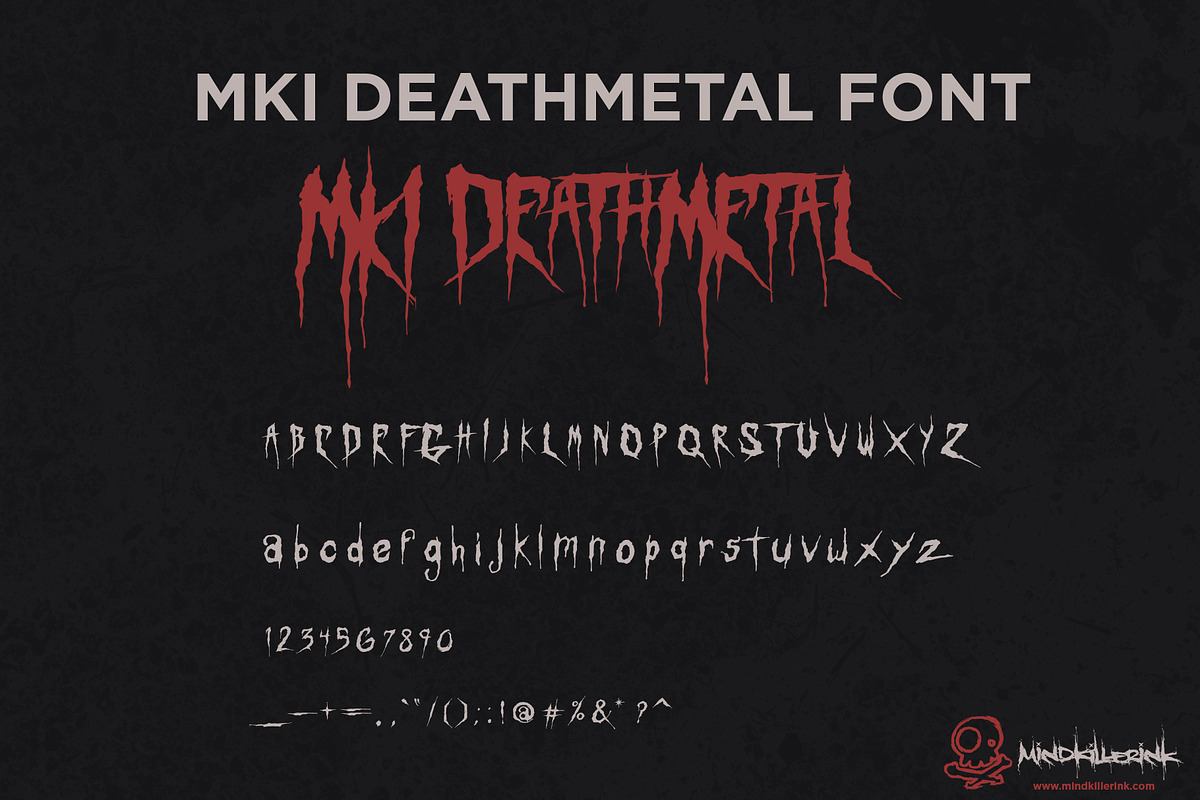
MKI Deathmetal font Free Download
MKI Deathmetal Font Free Download
MKI Deathmetal Font Free Download is a bold and gritty typeface inspired by the heavy, rebellious spirit of death metal music. With its sharp edges, distorted letterforms, and aggressive design, this font is perfect for creating intense, heavy designs like band logos, album covers, posters, merchandise, and more.
Its rough, grunge style gives it a raw and powerful appearance, making it ideal for projects that need to convey strength, rebellion, and energy. Whether you’re designing for a metal band, creating promotional materials for a concert, or working on any edgy creative project, MKI Deathmetal adds an intense and bold look to your typography.